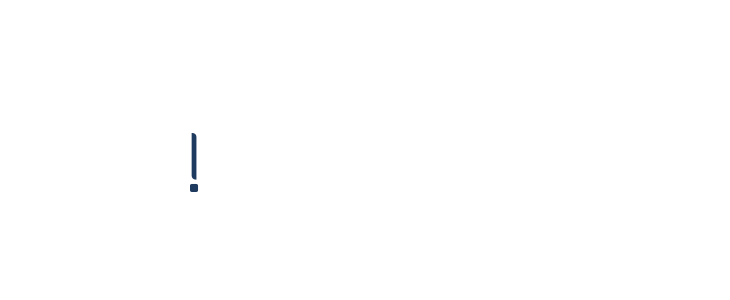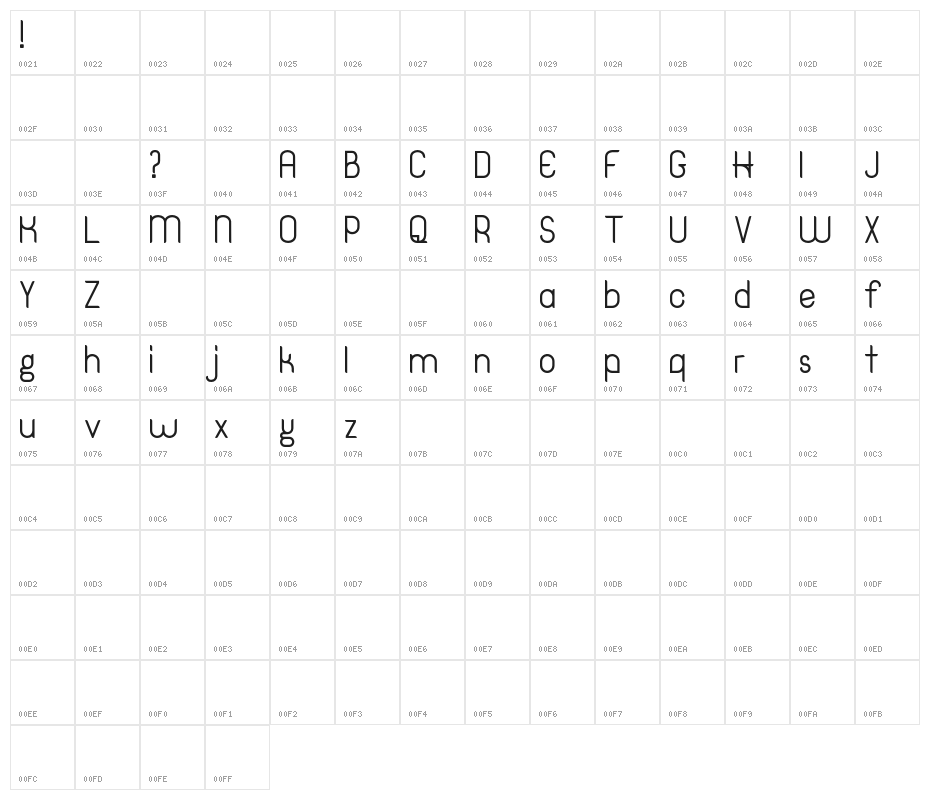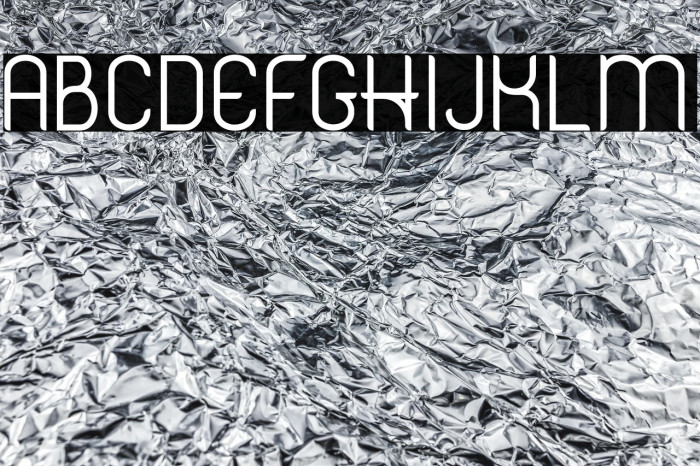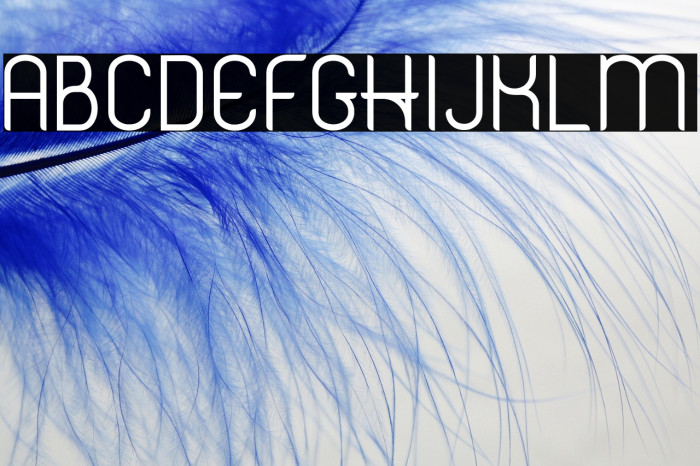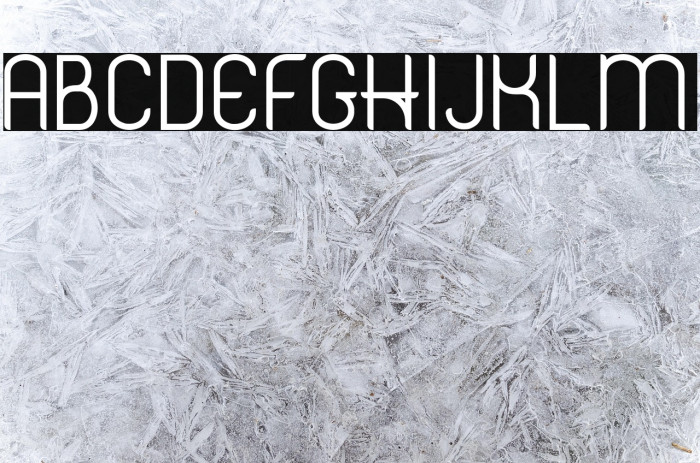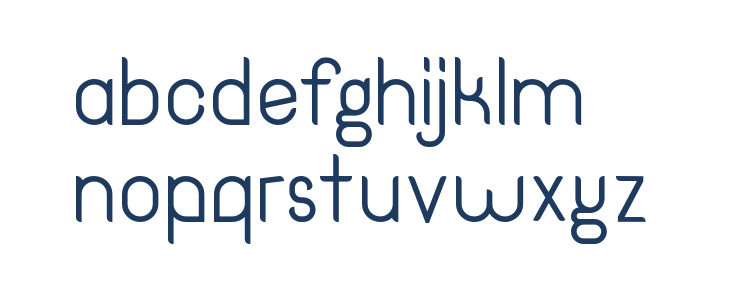
HingeDEMO Font
HingeDEMO Description
This font features a unique and modern design with a geometric and minimalist approach. The characters are constructed with clean lines and rounded edges, giving it a contemporary and approachable feel. The uppercase letters maintain a consistent height, while the lowercase letters exhibit a slightly more playful and varied structure. The font's simplicity is balanced by subtle quirks in certain characters, such as the distinctive treatment of the 'Q' and 'R'. The overall appearance is sleek and versatile, making it suitable for a wide range of applications.
| Use Case | Headlines, Logos, Digital Interfaces |
| Proposed Projects | Ideal for branding, digital interfaces, and modern print designs. |